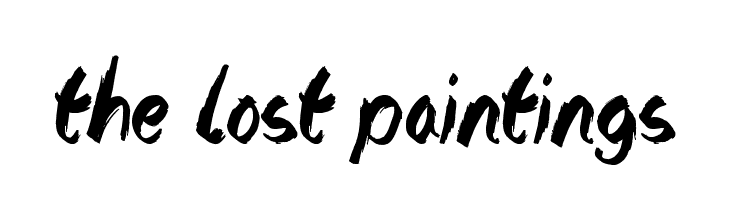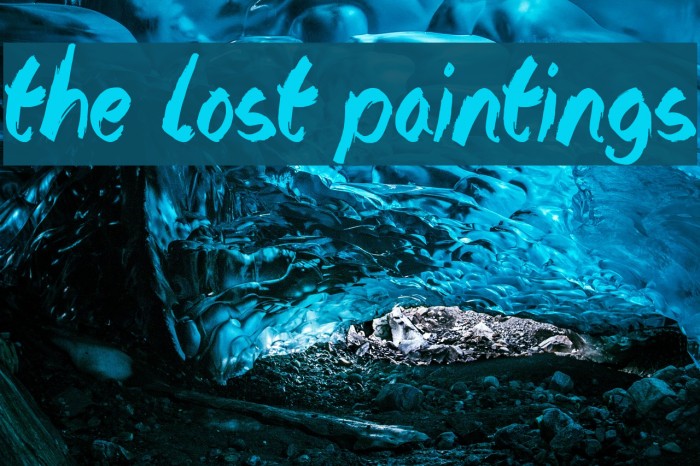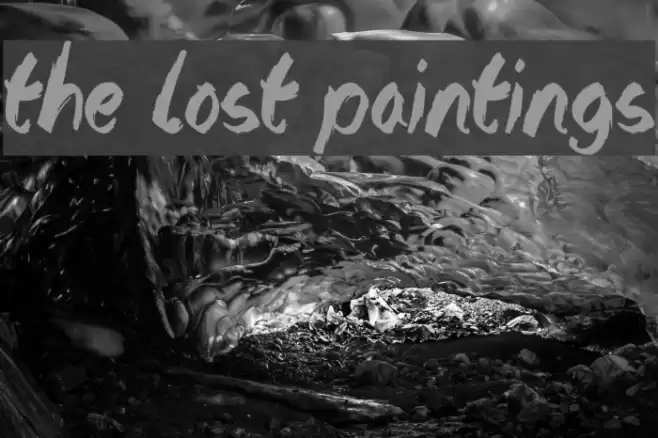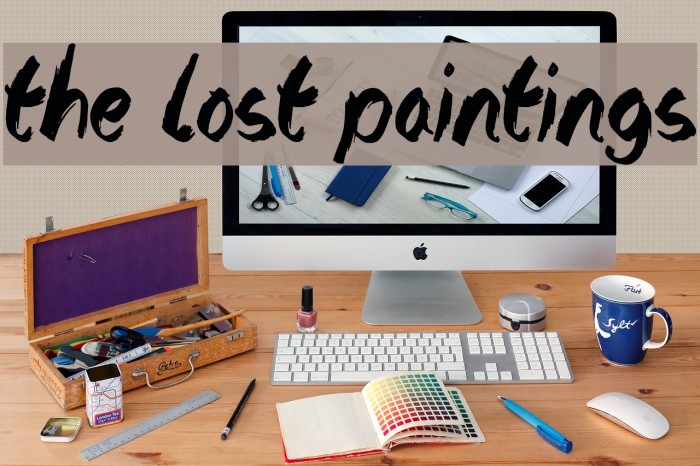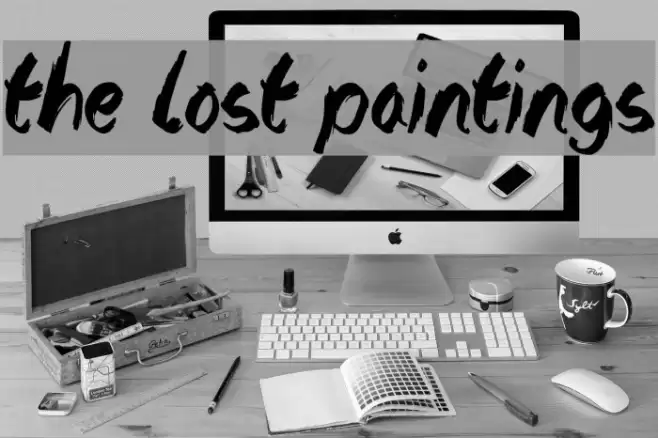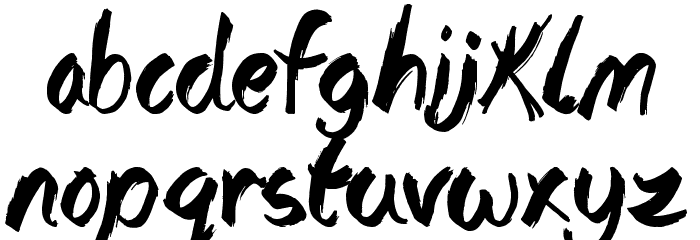
The Lost Paintings Font
Font by Jonathan Harris - www.tattoowoo.com
| Cas d'utilisation | Logos, Headlines, Artistic projects |
| Projets proposés | Ideal for artistic projects, branding, posters, and invitations where a personal touch is desired. |